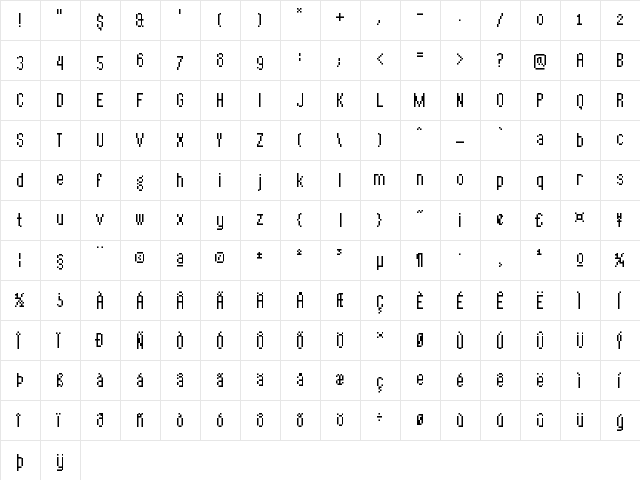
Title Pix Regular
| Designer | FrozenSerif |
Design Context for Title Pix Typeface
Title Pix is a composed and adaptable typeface that performs quietly and consistently across a wide range of design contexts.